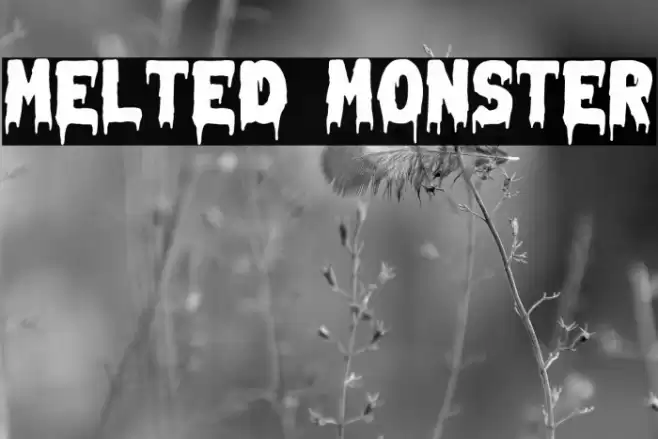
Melted Monster Font
Melted Monster Description
This font features a unique, dripping effect that gives the impression of melting or oozing letters. The bold, thick strokes are irregular, creating a dynamic and slightly chaotic appearance. Each character appears as if it is slowly melting, with drips extending downwards, adding a playful and spooky vibe. The font maintains a consistent weight throughout, with a strong presence that makes it ideal for eye-catching designs. Its distinct style is perfect for themes related to horror, Halloween, or anything that requires a touch of the bizarre and unusual.
A bold, dripping font with a melting effect, perfect for spooky themes from Regular fonts.
- Proposed Projects: Ideal for Halloween posters, horror movie titles, themed party invitations, or any project needing a creepy, playful touch.